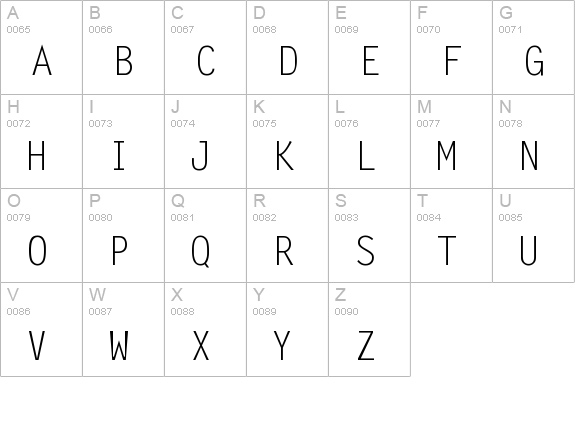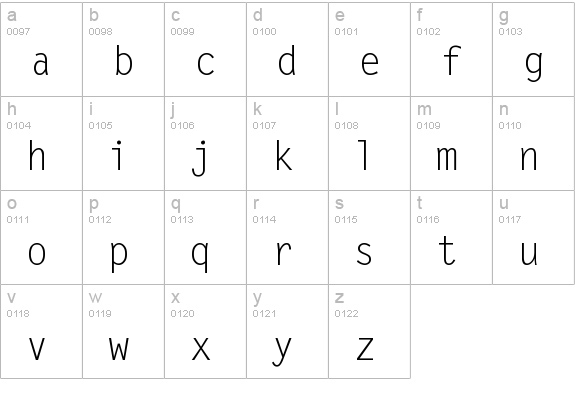
Introducing SetlerGothic font, a unique and captivating typeface that effortlessly combines elegance with a touch of edginess. This font is a perfect choice for those seeking to make a bold statement while maintaining a sophisticated aesthetic. SetlerGothic showcases a harmonious blend of sharp angles and smooth curves, giving it a distinct and commanding presence. Its tall and narrow letterforms exude a sense of sleekness, making it a versatile font that can be used in various design projects. With its clean lines and attention to detail, SetlerGothic offers clarity and legibility, ensuring that your message is conveyed with utmost precision. Whether used for headlines, logos, branding materials, or advertising campaigns, this font effortlessly captures attention and leaves a lasting impression. What makes SetlerGothic font even more remarkable is that it is freely available for download at FontsMarket.com. This means that you can easily access and utilize this exceptional typeface for your personal or commercial projects without any restrictions or limitations. So, go ahead and embark on a creative journey with SetlerGothic font. Let its striking presence and refined appeal elevate your designs to new heights. Download it now, exclusively at FontsMarket.com, and unleash your imagination with this remarkable and freely accessible font.